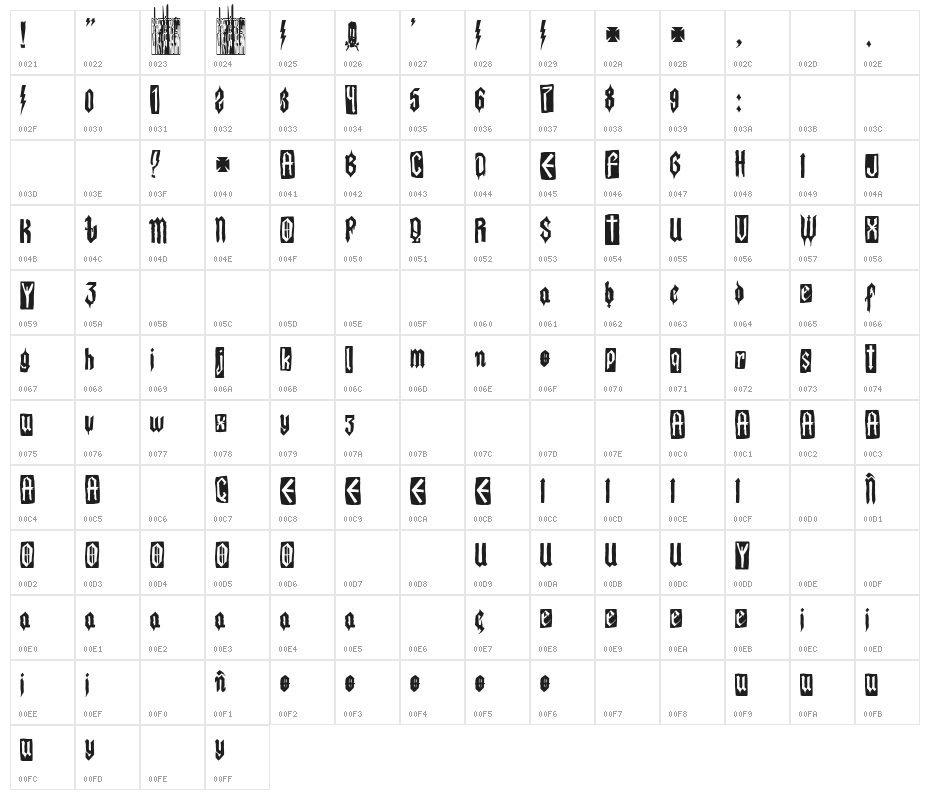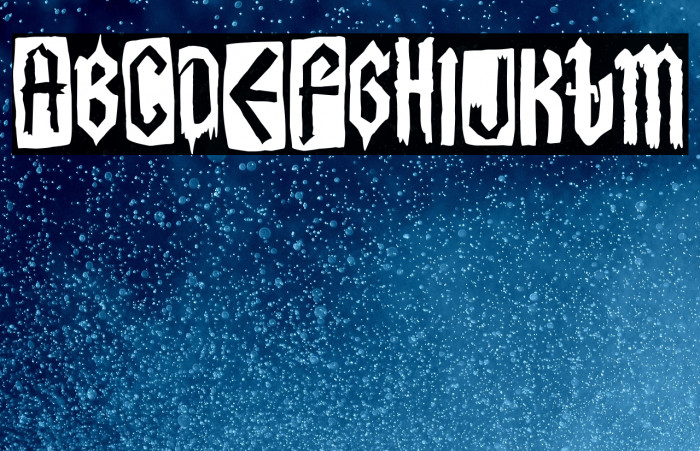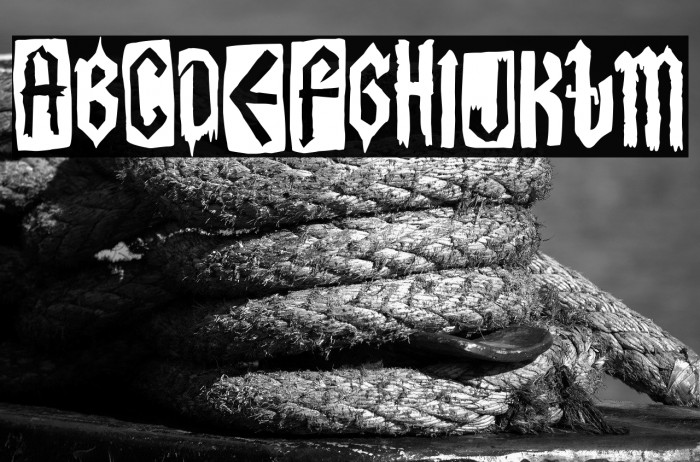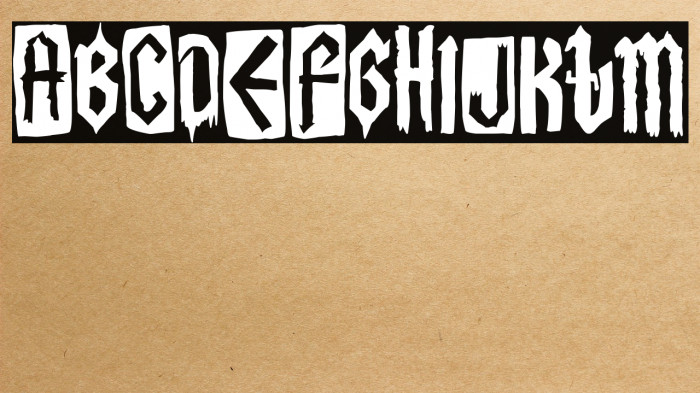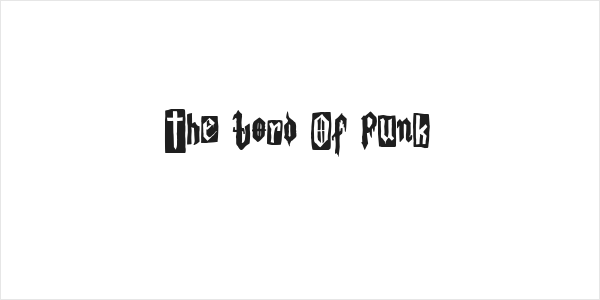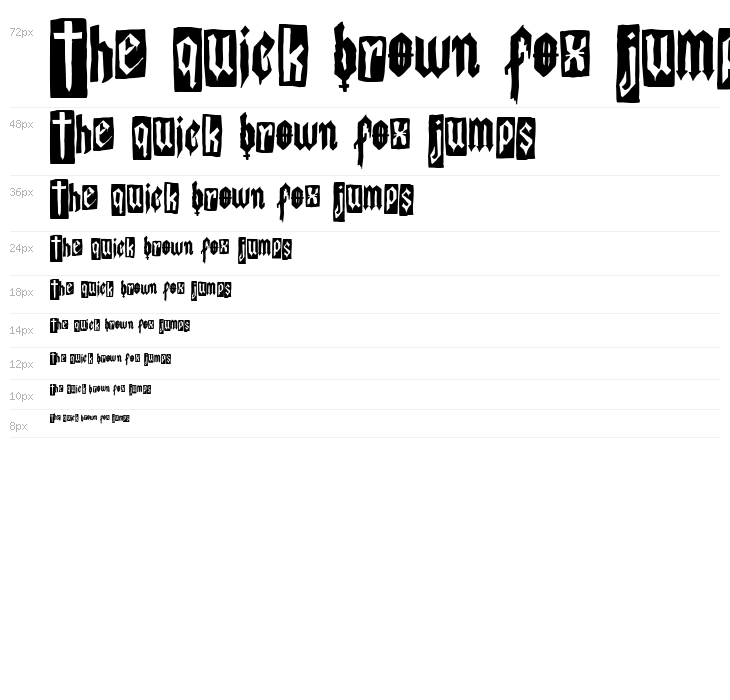
The Lord Of Punk Font
The Lord Of Punk Description
This font exudes a rebellious and edgy vibe, characterized by its bold, jagged edges and irregular shapes. Each letter is uniquely crafted, giving it a hand-drawn appearance that embodies a punk aesthetic. The uppercase and lowercase letters maintain a consistent style, with sharp angles and a rough texture that suggests a sense of urgency and raw energy. The numbers and special characters follow this theme, adding to the font's overall chaotic and dynamic feel. This font is perfect for projects that aim to capture an alternative, non-conformist spirit.
| Overall Style | Punk, Edgy, Rebellious |
| Use Case | Logos, Posters, Album Covers |
| Proposed Projects | Ideal for music album covers, band posters, graffiti art, and edgy branding projects. |